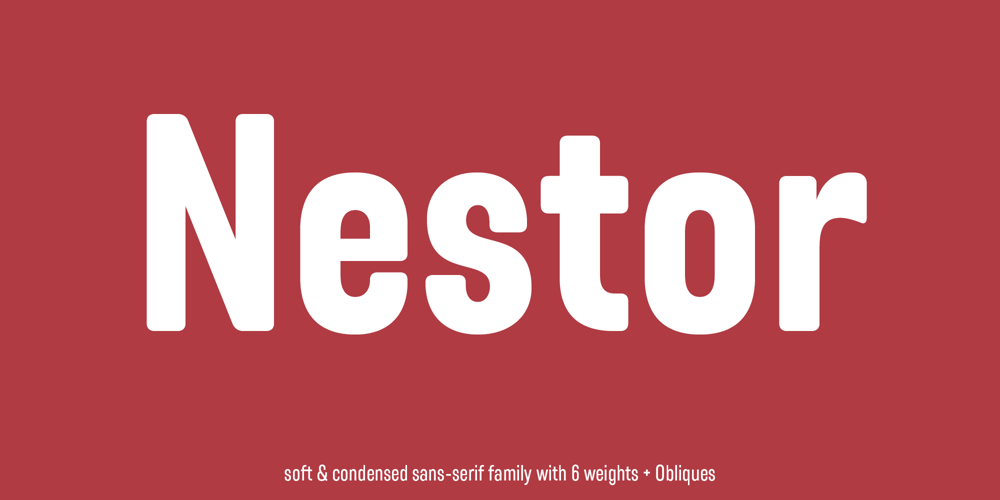
Nestor
Nestor font
Nestor Font Family was designed by Julien Fincker and published by Fincker Font Cuisine. Nestor contains 12 styles and family package options. About Nestor:Nestor is a soft and narrow sans-serif typeface family. It gets its soft character by the rounded corners. Due to its narrow width, it stands very upright and also appears very self-confident and compact due to its closed forms. Its appearance is very clear and distinct. This makes it very interesting for strong headlines, editorial, packaging, branding and advertising.Features:The Nestor family has a total of 12 styles, from Extralight to Extrabold with matching italics. With over 535 characters, it covers around 200 Latin-based languages. It also has a whole range of Open Type features. There are alternative characters as stylistic sets, automatic fractions, arrows and much more.